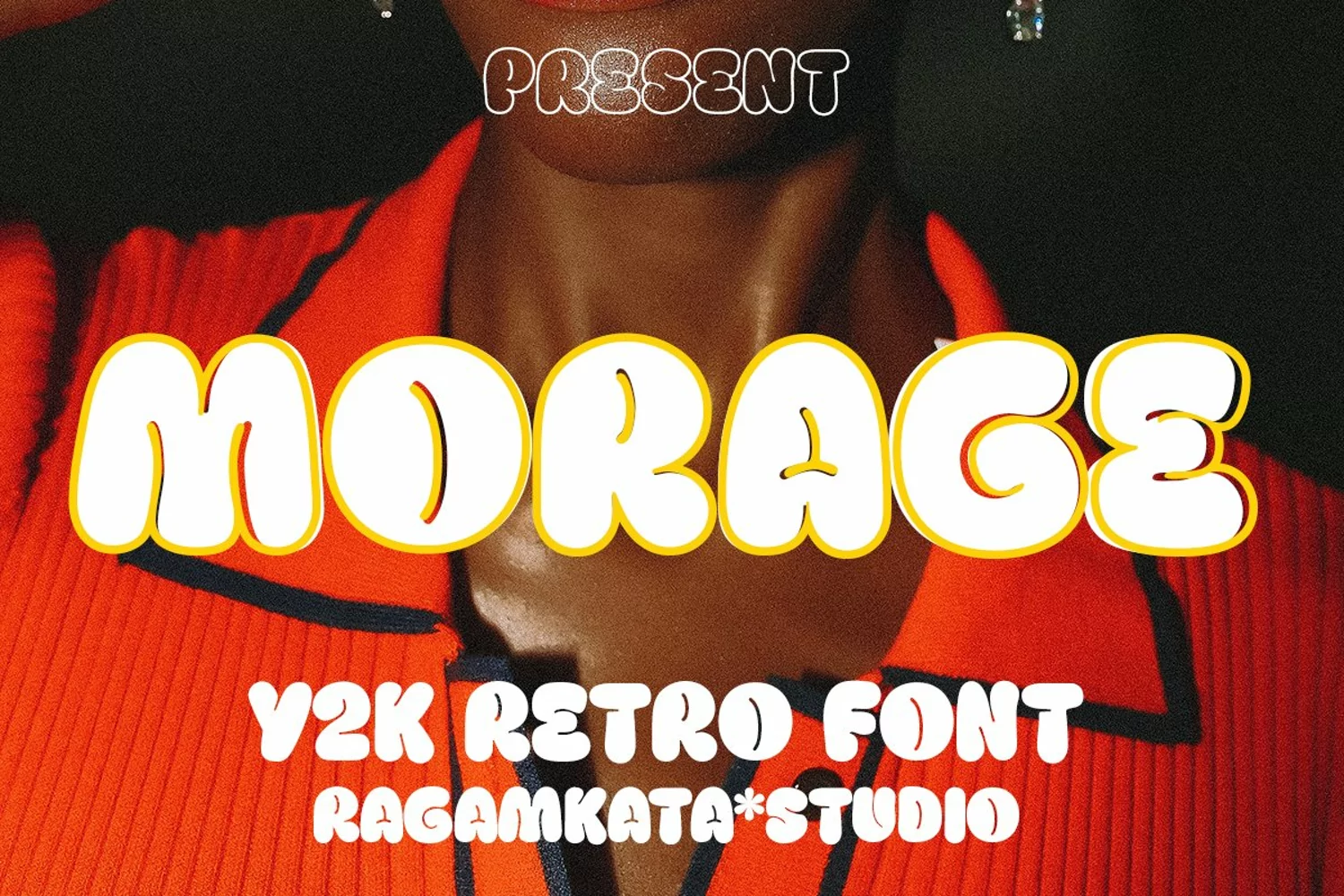
Morage - Retro Futurisctic
Introducing Morage, the ultimate font for all your Y2K design needs! With its pixelated aesthetic and bubble-inspired curves, Morage captures the retro-futuristic vibe of the turn of the millennium.
Perfect for logos, headlines, or any other design element that needs a touch of Y2K flair, Morage is a versatile and eye-catching font that will make your work stand out.
- Full alternate by uppercase and lowercase
- Alternates and Ligatures
- Letters, numbers, symbols, and punctuation